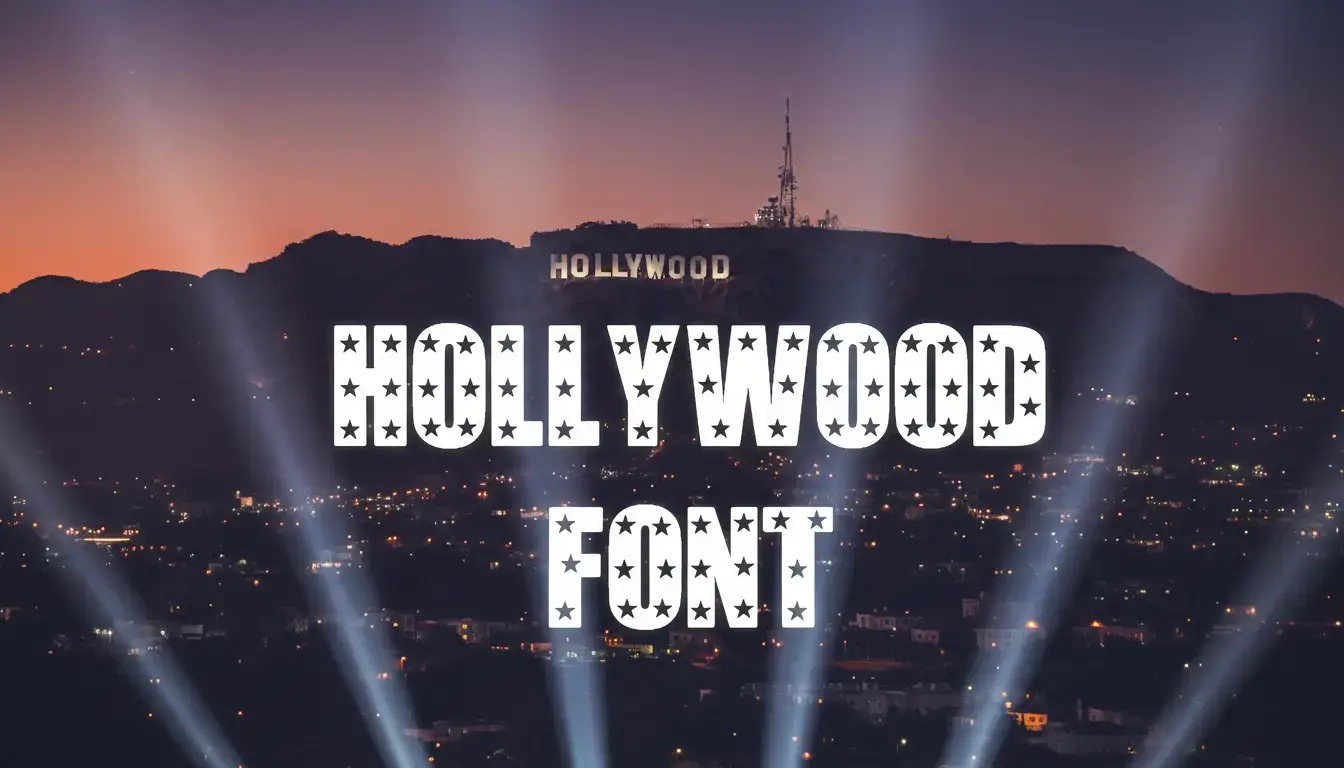
Hollywood Font
Hollywood
Hollywood Font Details
- Designer: Martin Holm
- Publisher: Spacefish Productions
- Glyphs: 71
- Characters: A–Z, a–z and basic punctuation
What You Can Type With Hollywood
Hollywood has the full alphabet in upper and lowercase. There are no numbers, so you'll need a second font for dates, prices or phone numbers. Common punctuation such as &, !, ? and $ is included as well. It has 6 accented letters, but not the full set for Spanish or French, so test any non-English words first.
Where Hollywood Works Best
Designers usually reach for fonts like Hollywood when they're making posters, logos and eye-catching headlines. Use it for one standout word or headline and let simpler fonts handle the rest.